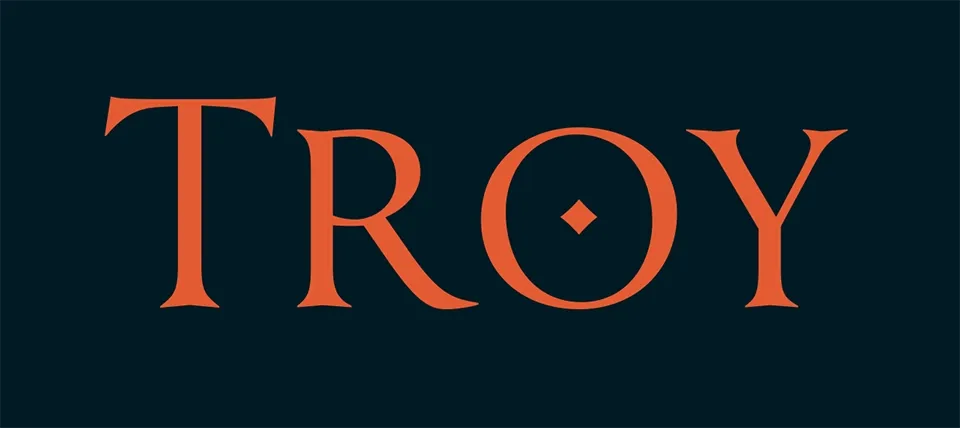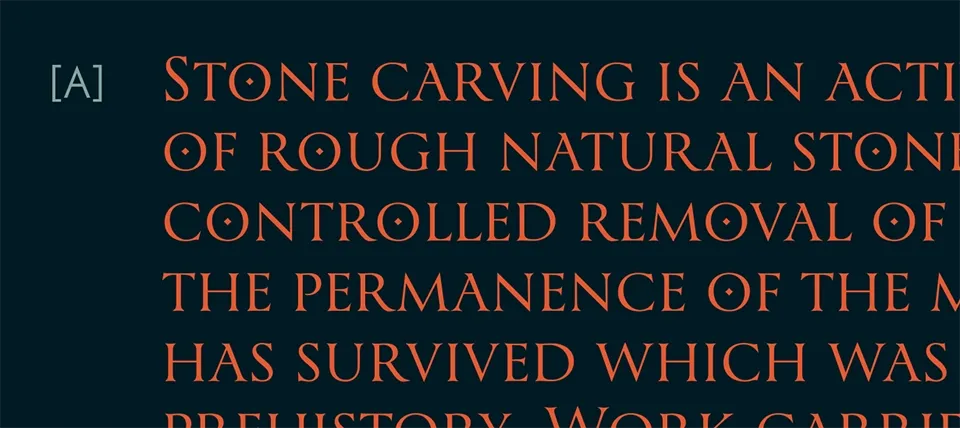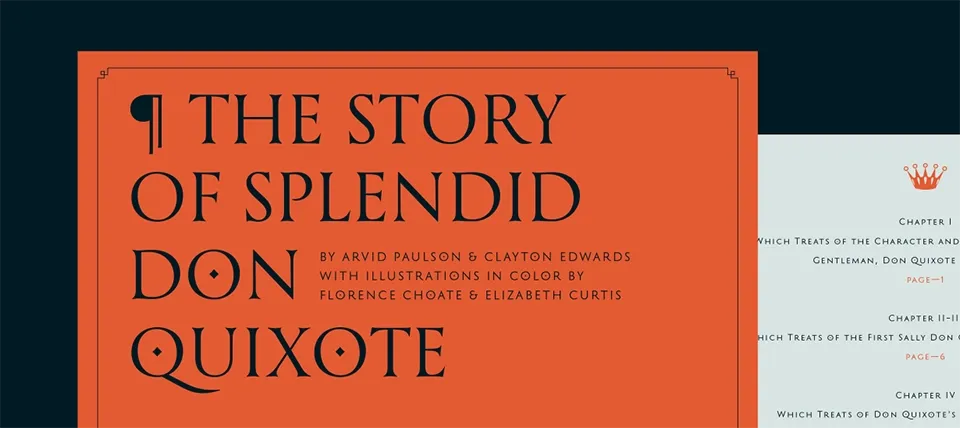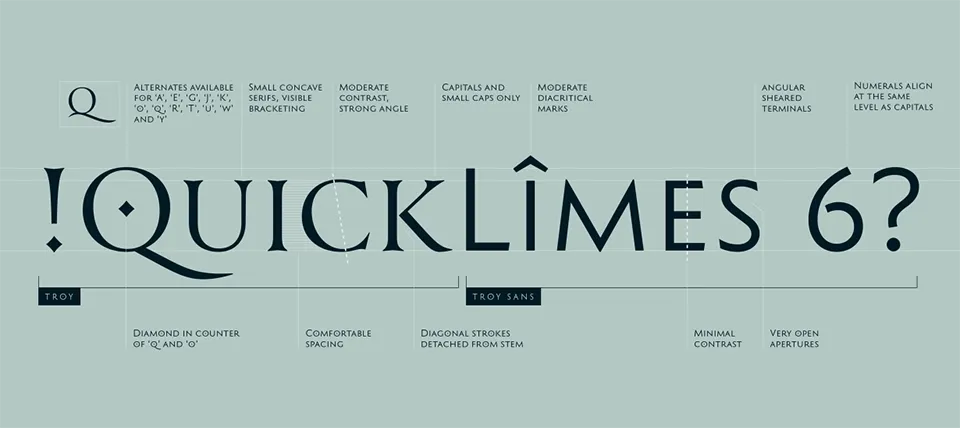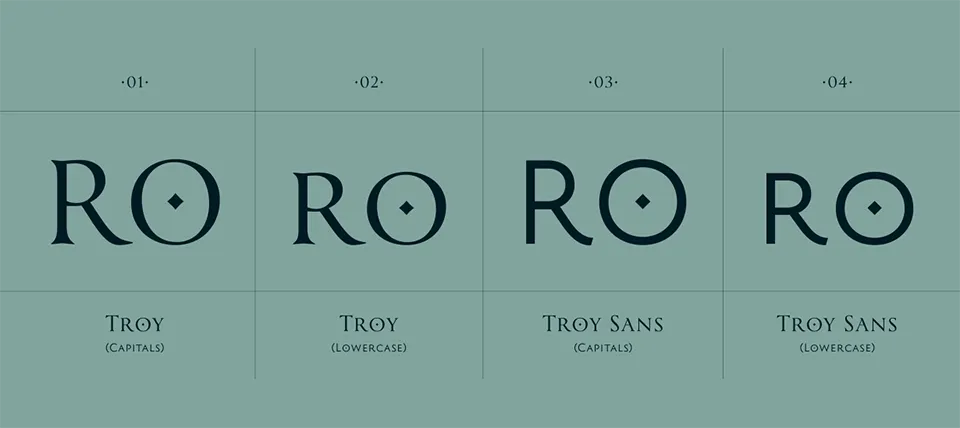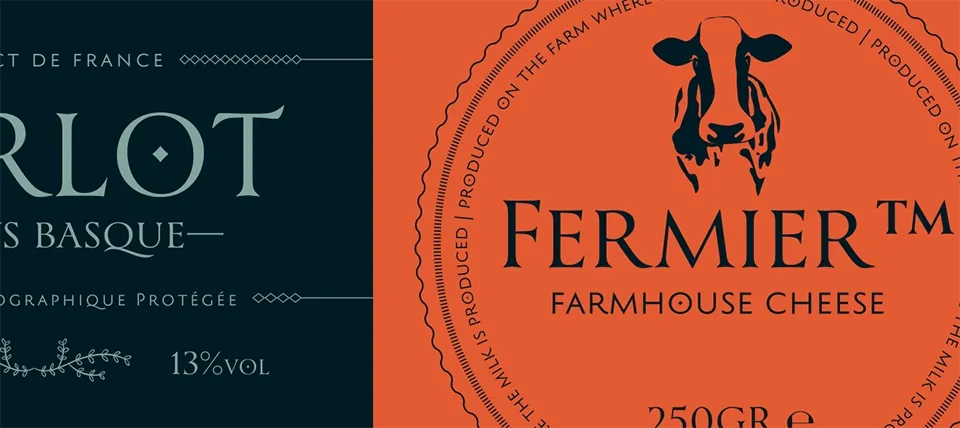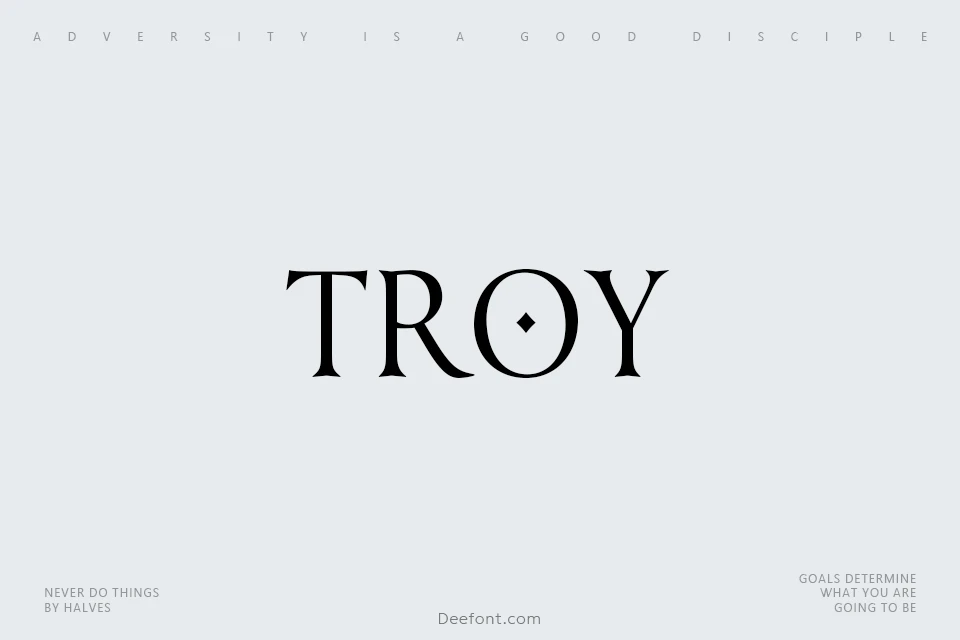
Troy Font
Troy Serif Font is a classic serif typeface inspired by inscriptional Roman capitals, giving it an immediate sense of formality and solemnity. All lowercase letters are designed as small capitals, and the font features several alternate letterforms, including mystical alternates and dotless versions for certain characters. With a range of ligatures and stylistic options, Troy Serif Font is ideal for titling, branding, and projects seeking a blend of historical elegance and contemporary versatility.